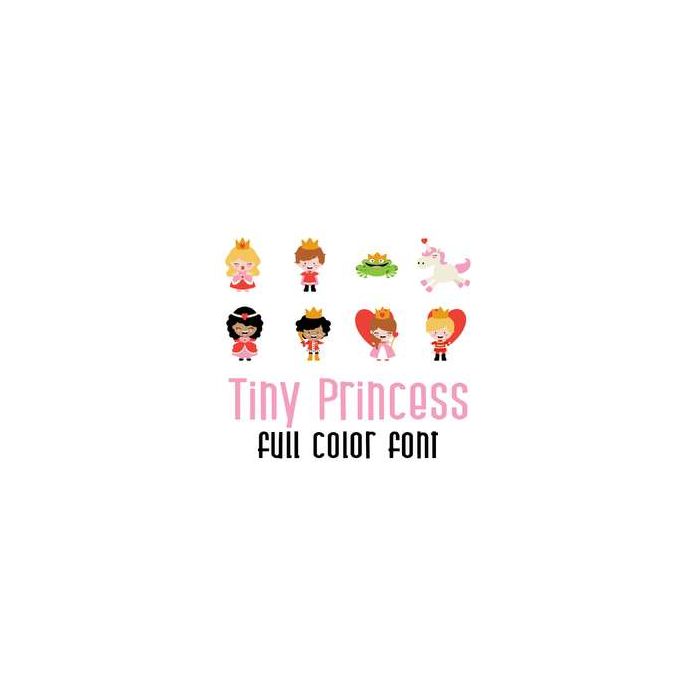
This adorable full color doodlebat font features adorable princesses, prince charmings, knights and Valentine themes. Perfect for cards, crafts, gifts, decor, scrap book pages, planner stickers and more!